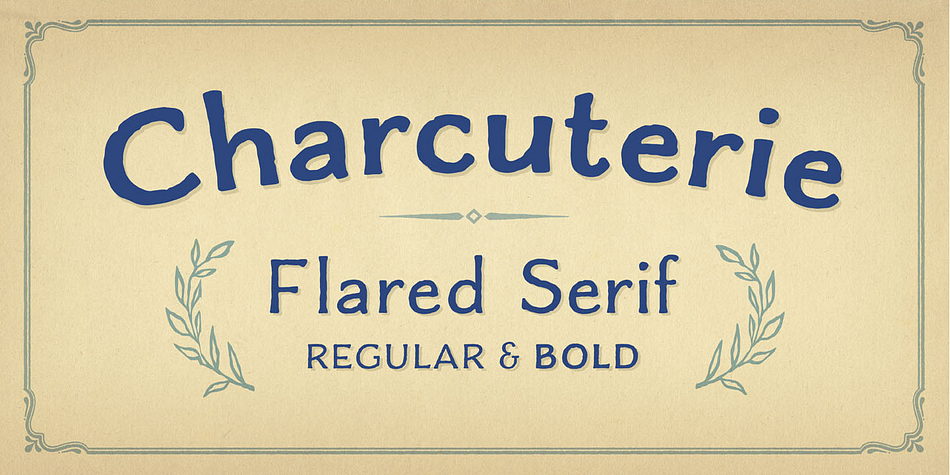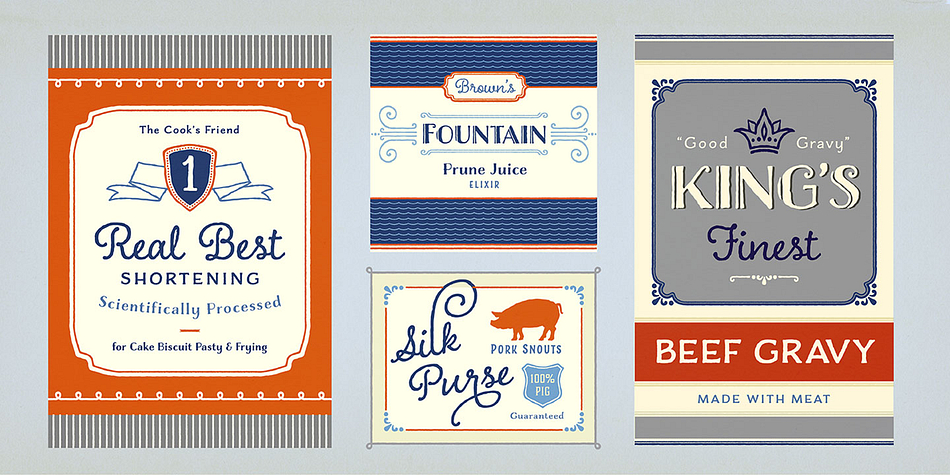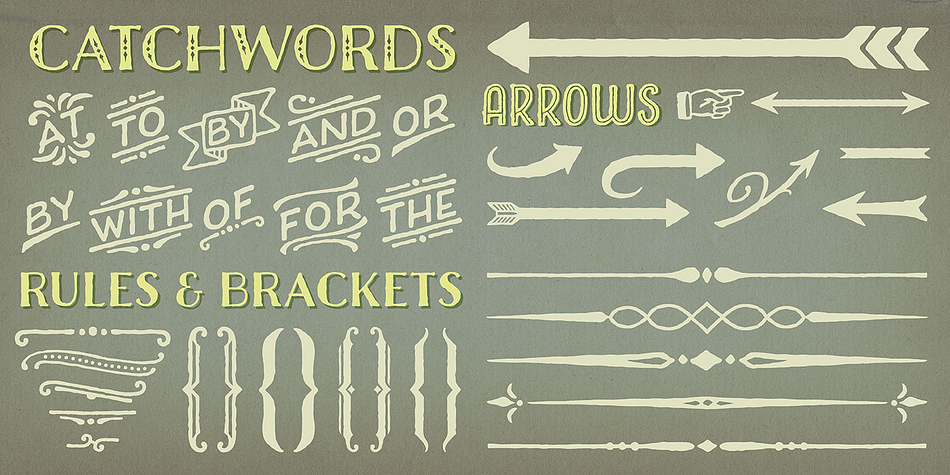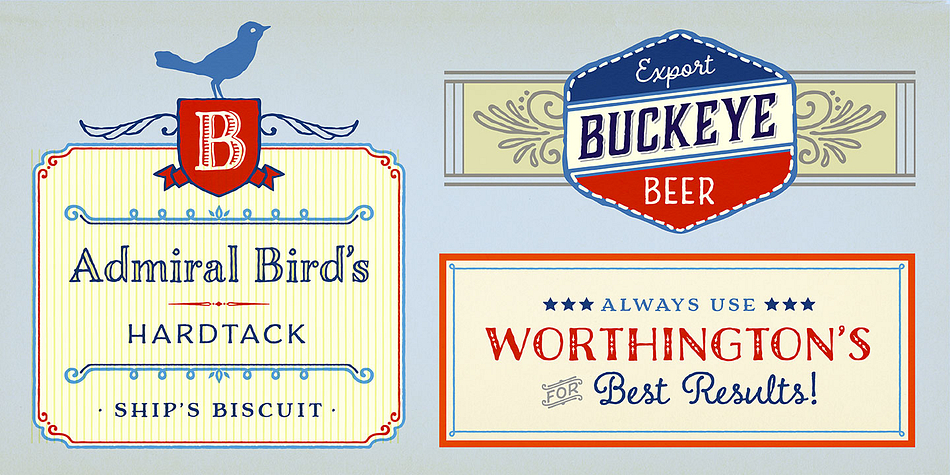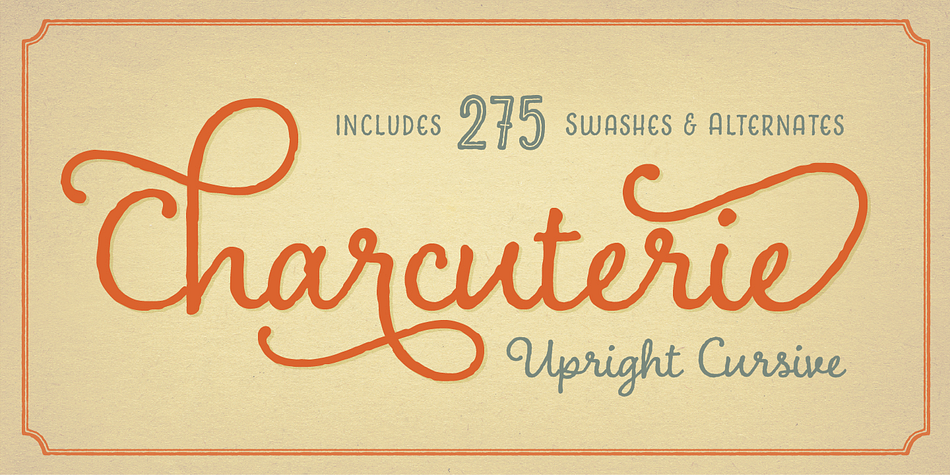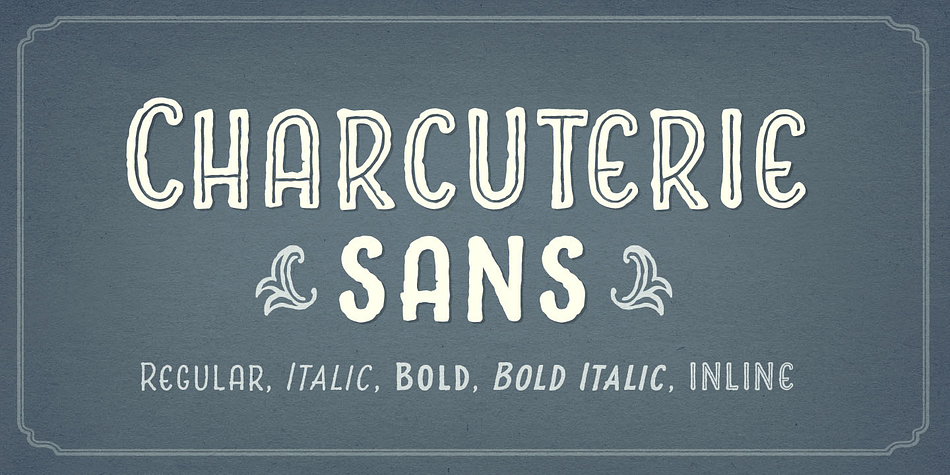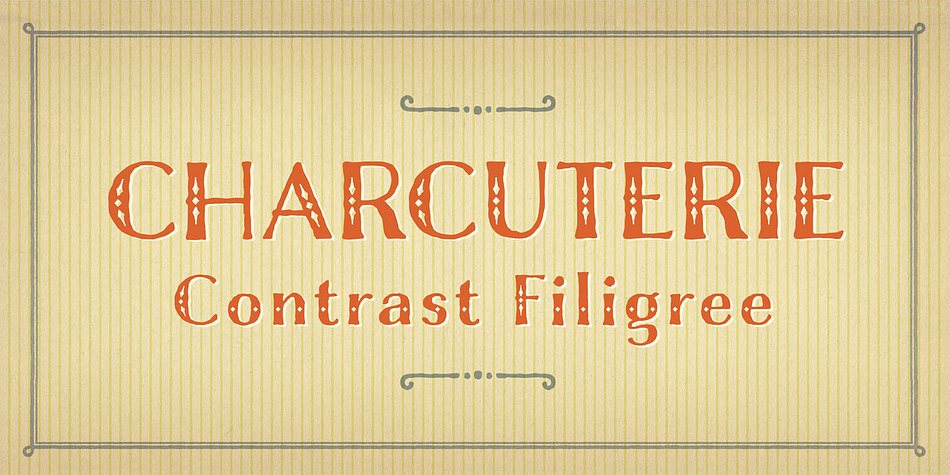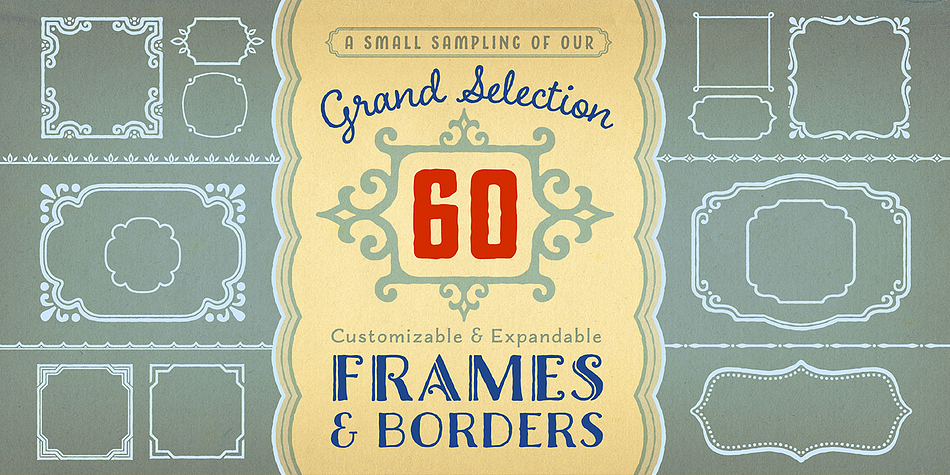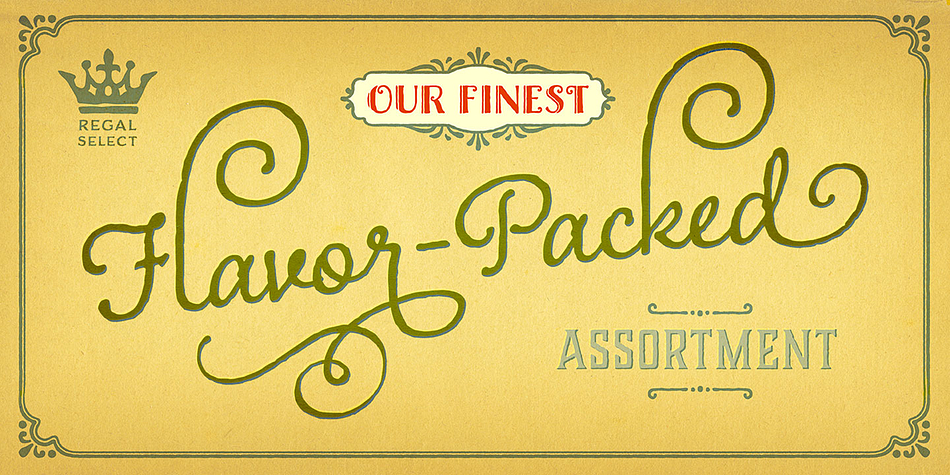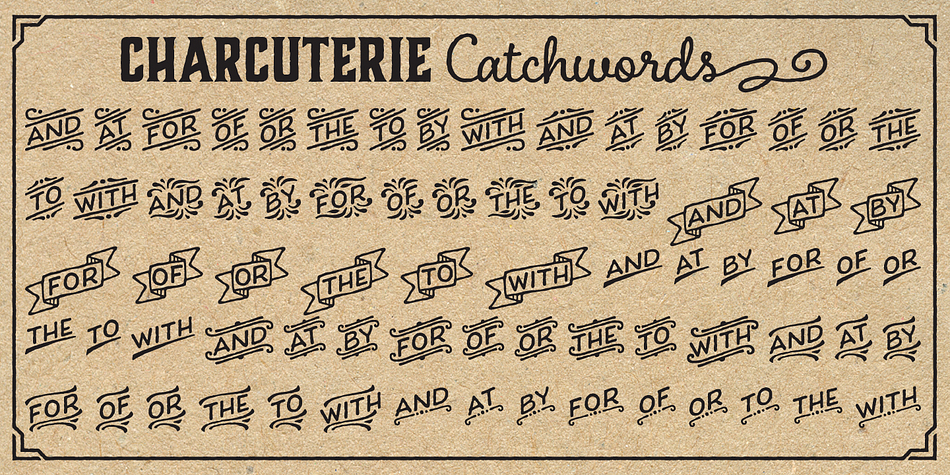
Charcuterie is a multiple classification font collection published by Laura Worthington.
A twenty-two font collection. This contains every font in the Charcuterie Design Kit.
A five font family that is included in the Charcuterie Design Kit or can be purchased separately.
A two font family that is included in the Charcuterie Design Kit or can be purchased separately.
A four font family that is included in the Charcuterie Design Kit or can be purchased separately.
A two font family that is included in the Charcuterie Design Kit or can be purchased separately.
A large and rare undertaking, Charcuterie is a family of ten distinct yet related typefaces, many of which have their own font families, and three decorative/ornamental typefaces.
While most of the Charcuterie typefaces are outfitted with a standard character set, Charcuterie Engraved features 135 swash alternates and Charcuterie Cursive boasts 275.
Charcuterie Frames offers a broad and endless approach to creating frames of any width, height and style. Featuring 60 corner elements and 20 top, bottom and side pieces along with a detailed User’s Guide on how to construct the frames.
Charcuterie Catchwords features nine different styles for a total of 82 glyphs.
Charcuterie Ornaments is very practical and features 100 glyphs a vast array of arrows, brackets, rules, icons, ribbons and more.
This ambitious, yet accessible, set offers a virtually endless series of combinations, allowing each designer to form a tasty platter of ingredients, one that is uniquely theirs, for each project. Used solo or blended with other fonts from this large family, elements of Charcuterie are well suited for headlines, titling, logos, display, packaging, signage, or advertising. Dig deep into each typeface to find a rich set of fonts (the number depending on the typeface), revealing variations upon variations.
The word charcuterie means the preparation of meats. Today, it often refers to a wide and varied selection of meats served together, listed as a single, beautiful, and complex menu item.
Charcuterie celebrates the personally crafted—the sense of the human touch giving it a slightly rough edge that only adds to its charm. The “roughness” derives from a slight stressing and small irregularities in some fonts. This bit of unevenness doesn’t dominate the look—it’s simply the personality and humanity of the type designer cooked into the final piece.
Charcuterie is an homage to the inventiveness, passion, and care of peasants who proudly handed down recipes through generations. Their humble fare is used by bistro chefs to create masterpieces by ever so slightly transforming the simple into the sumptuous. Similarly, with Charcuterie the designer can employ the handcrafted look of the many letters within these font families to create a project that is jaunty, quirky, and juicy or one that is a gloriously rich and varied feast for the eyes.
The family of Charcuterie is a bit reminiscent of early 1900s styling, not precisely Bauhaus or Art Deco, not a revival, but an imagined restoration based on memory, captured from novels and movies set in Paris, a modern echo of collections of impressions of a time when people strolled along and stopped to read a French bistro chalkboard menu drawn with letters that resemble Charcuterie. It was a way of living, of enjoying the food of the well-considered choices of the trained, experienced bistro chef, of sipping local wines and basking in the warmth of chatting with friends on leisurely weekends, sitting at little tables and observing the passersby. Charcuterie is a smorgasbord of delightful type inspired by our sense of a happy time at a splendid table.
Charcuterie also serves to transcend a central taboo in our industry—that of mixing too many fonts in one page or project. This forbidden act gained its unfortunate reputation from abuse and excess or simple inexperience. Charcuterie brings back a powerful tool for artfully tackling a project and retaining all the complexity the designer envisions. It does all the heavy lifting, taking the guesswork out of combining typefaces and providing a set unified by the eye and hand of one type designer. Despite the multitude of font combinations available, there is a sense of harmony and continuity, just as the interior design world discovered that they could, indeed, combine plaids, stripes, and florals if they were based on a common thread: such as the same tones or intensities of hues. The single hand that created Charcuterie imposes a sense of compatibility, despite how different the fonts initially appear to be. The further glue that holds this set together is the availability of font files, purchased separately, of decorative elements: Charcuterie Catchwords, Charcuterie Ornaments, and Charcuterie Frames (borders, corners, and frames).
If you’d prefer, purchase individual fonts within these typeface families. Each is strong enough to stand on its own. However, using elements from many of these faces and fonts adds layers of textures and richness to your work, and with their infinite number of variations, flavors the work with your own talent and flair. The entire family lends itself to experimentation, acting as a complete and complex toolbox, enabling you to work in extraordinarily varied ways within the subtle yet studied constraints of the collection as a whole.